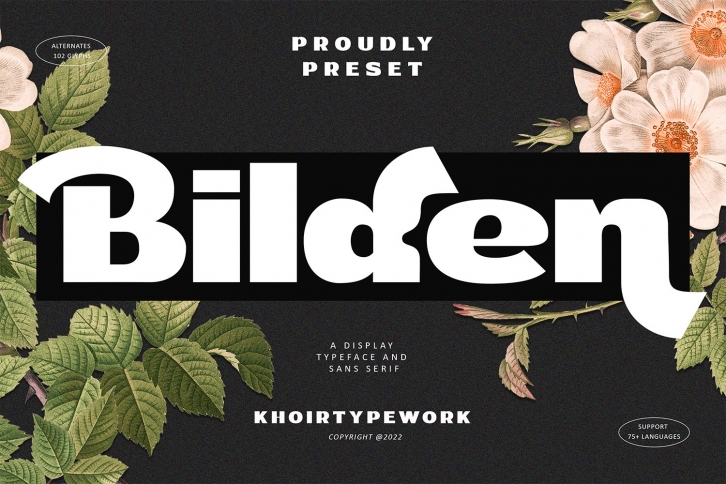
Bilden - A bold sans serif font with a soft touch that blends with a bold feel creates a fresh and modern font. with the addition of 102 Alternatives to add fun to your projects.